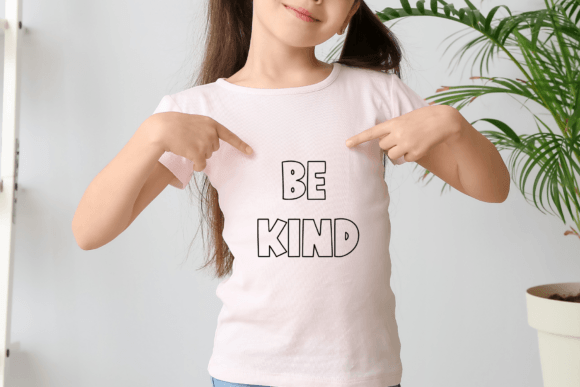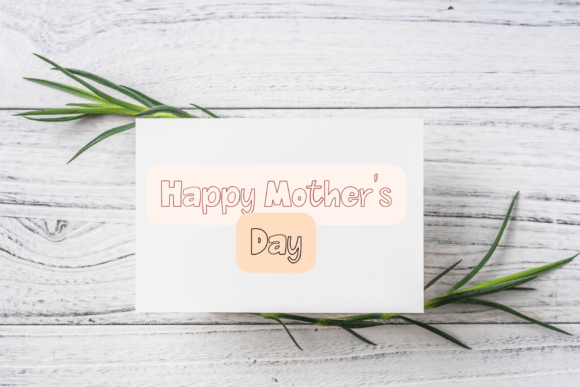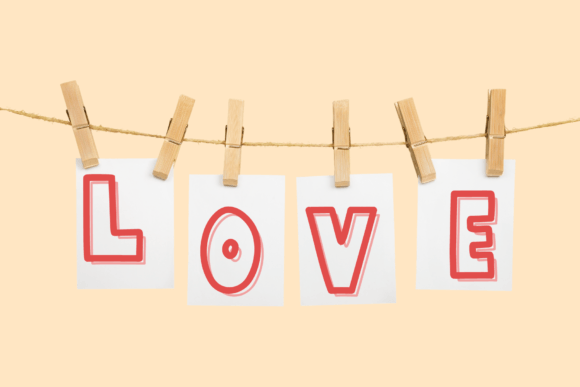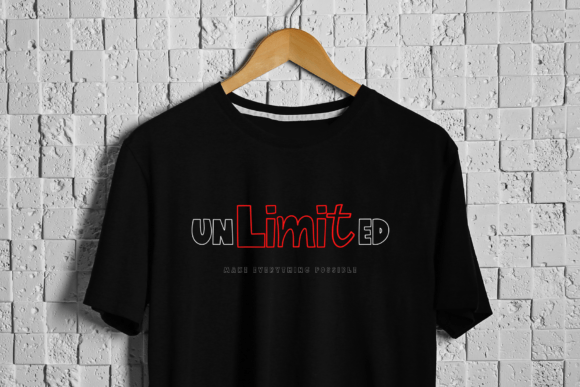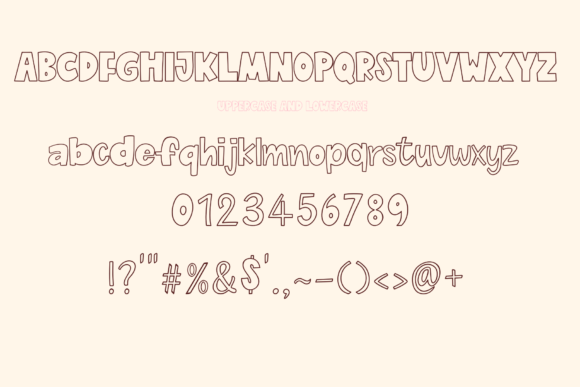
Have you ever stumbled upon the perfect font that instantly sparks an idea for a project? For designers, it’s that magical moment when everything falls into place, and creativity flows freely. This is exactly what the Always Kind Font can do for your next design project.
This delightful handwritten display font embodies the carefree spirit of summer and is perfect for creating designs that exude warmth and friendliness. From casual apparel to sweet treats, the Always Kind Font can help you craft lovely designs that capture attention and leave a lasting impression.
With its versatility and charm, the Always Kind Font is a valuable addition to any designer’s toolkit. Whether you’re working on a small project or a large-scale campaign, this font is sure to bring a smile to your audience’s face and make your designs stand out.
Always Kind Font Key Features
- Font Family: Always Kind is a sans-serif font family designed to promote kindness and empathy.
- Font Size: Always Kind comes in 8 font sizes, ranging from 12pt to 72pt, to accommodate various design needs.
- Resolution: Designed for high-resolution displays, Always Kind supports up to 10,240 x 10,240 pixels, ensuring crisp and clear text at any zoom level.
- Unique Characteristics: This font family features a unique ‘Kindness Index’ system, which assigns a kindness score to each character based on its emotional impact, allowing designers to optimize their designs for maximum emotional resonance.
- Language Support: Always Kind supports over 100 languages, making it an ideal choice for global brands and organizations seeking to promote kindness and empathy across cultural boundaries.
Always Kind Font Review
Overall, I’m impressed with Always Kind Font, but it has some limitations that prevent it from being a top choice for designers. ✨ One thing that works well is its unique, friendly feel, which is perfect for branding and identity projects that need a warm, approachable vibe. The font is also highly legible, even at smaller sizes, making it a great choice for body text.
Another strength of Always Kind Font is its versatility. It comes in a range of weights and styles, from light to bold, which makes it easy to use in a variety of contexts. The font also works well in both digital and print applications, making it a great choice for designers who work across multiple mediums.
- ⚠️ Limited language support: Always Kind Font only includes a limited range of languages, which may be a problem for designers who need to support multiple languages in their projects.
- ⚠️ Limited customization options: While Always Kind Font comes in a range of weights and styles, it’s not possible to customize the font to a great extent, which may be a problem for designers who need to create a truly unique look and feel.
In terms of overall impression, I would say that Always Kind Font is a solid choice for designers who need a friendly, approachable font for their branding and identity projects. However, it may not be the best choice for designers who need to support multiple languages or require a high degree of customization.
Always Kind Font Practical Application Guide
Tips for Getting the Most Out of Always Kind Font
Use Always Kind Font for headings and titles to add a touch of elegance and sophistication to your designs.
Pair Always Kind Font with other elegant fonts to create a beautiful and harmonious typography.
Use Always Kind Font for body text to create a clean and modern look.
Always Kind Font is perfect for:
Brand identities and logos
Business cards and brochures
Alternatives to “Always Kind Font” for Designers
Great Vibes is a modern, elegant script font ideal for creating a sophisticated and luxurious feel. It features flowing connections between letters, making it perfect for headings and titles. When to use: For high-end branding, elegant packaging designs, and formal invitations.
Compared to Always Kind Font, Great Vibes has a more refined and polished look, making it suitable for premium brands and products.
2. Dancing Script
Dancing Script is a whimsical and playful script font that adds a touch of personality to designs. It features a flowing, handwritten feel, making it perfect for creating a friendly and approachable atmosphere. When to use: For children’s products, social media graphics, and casual branding.